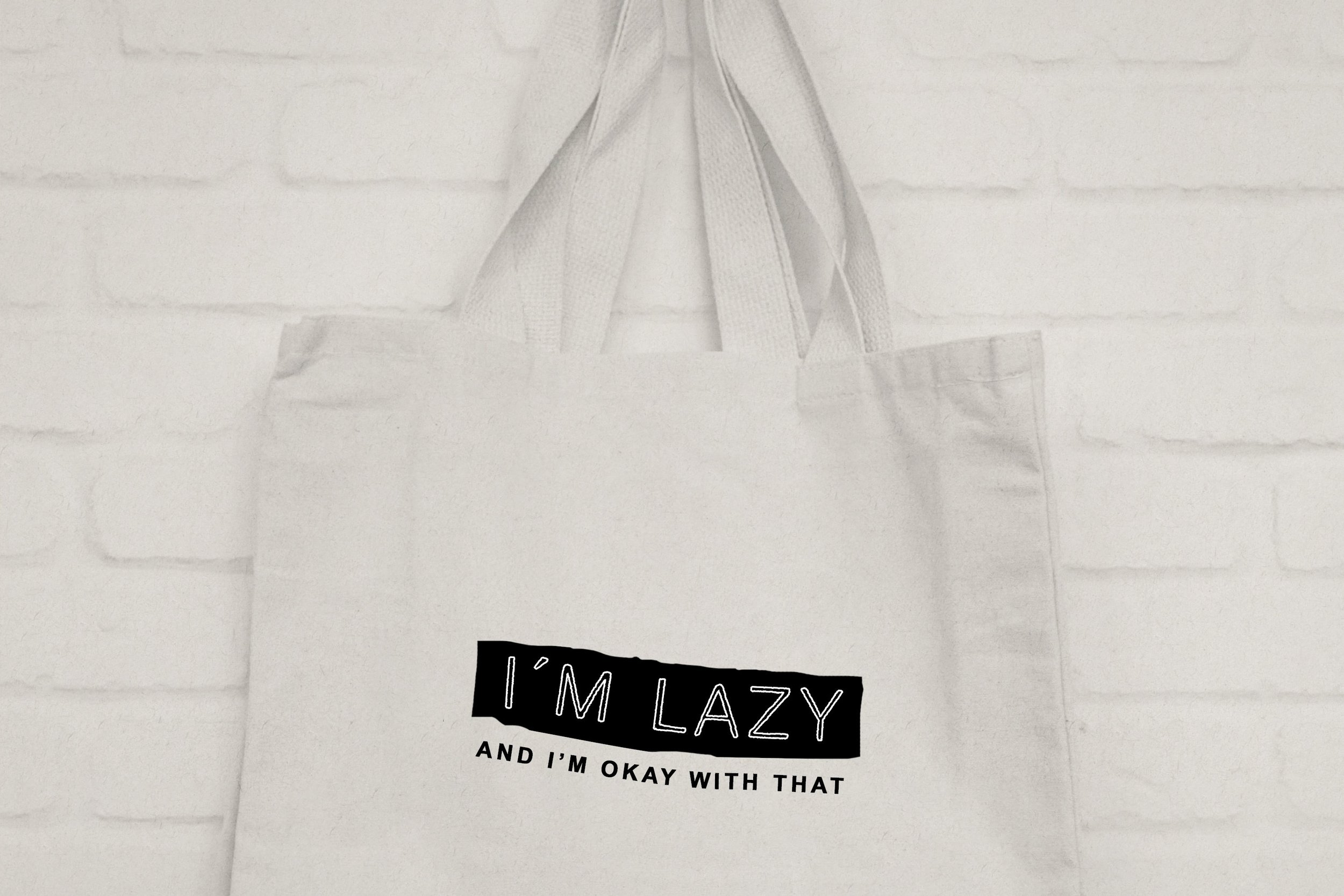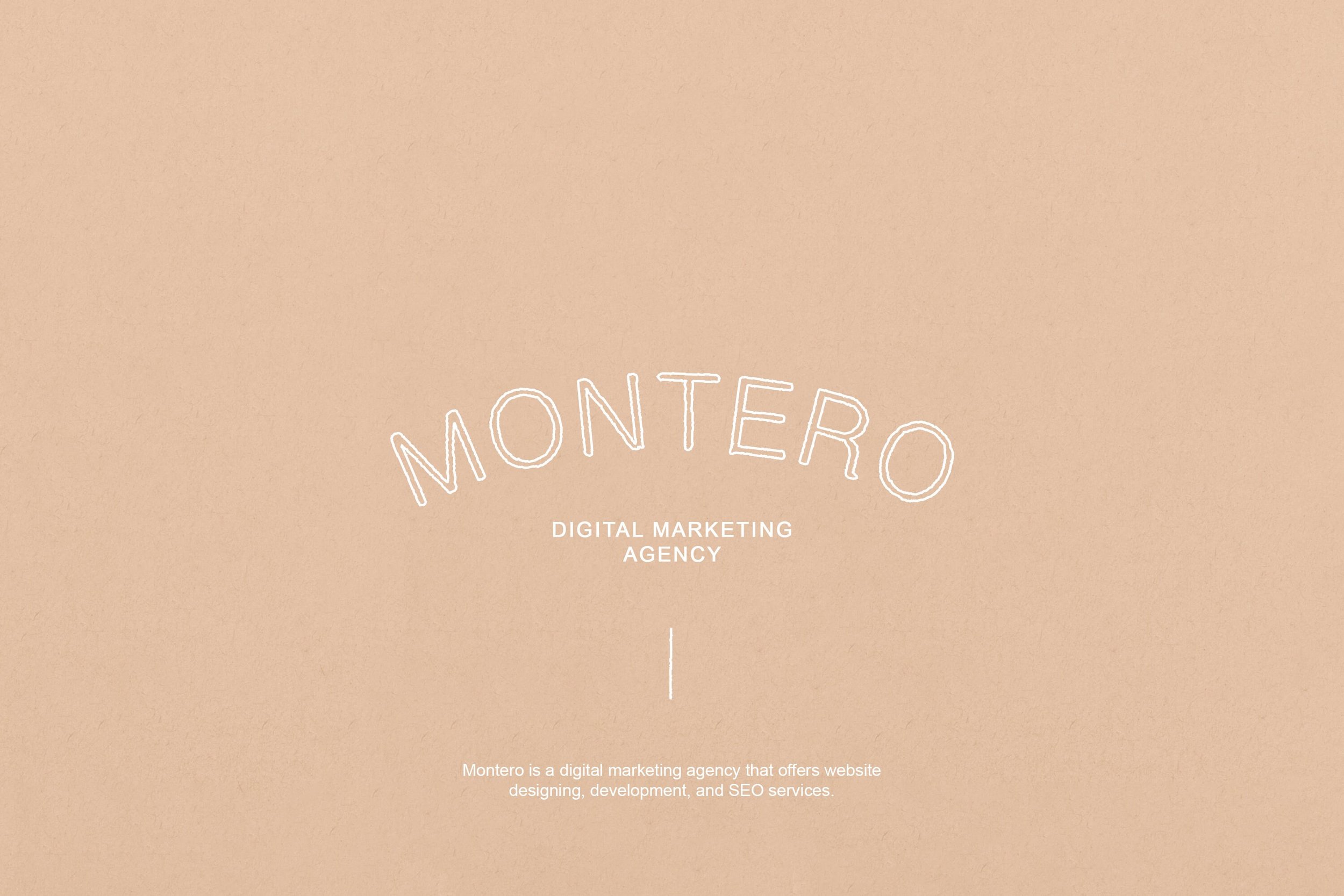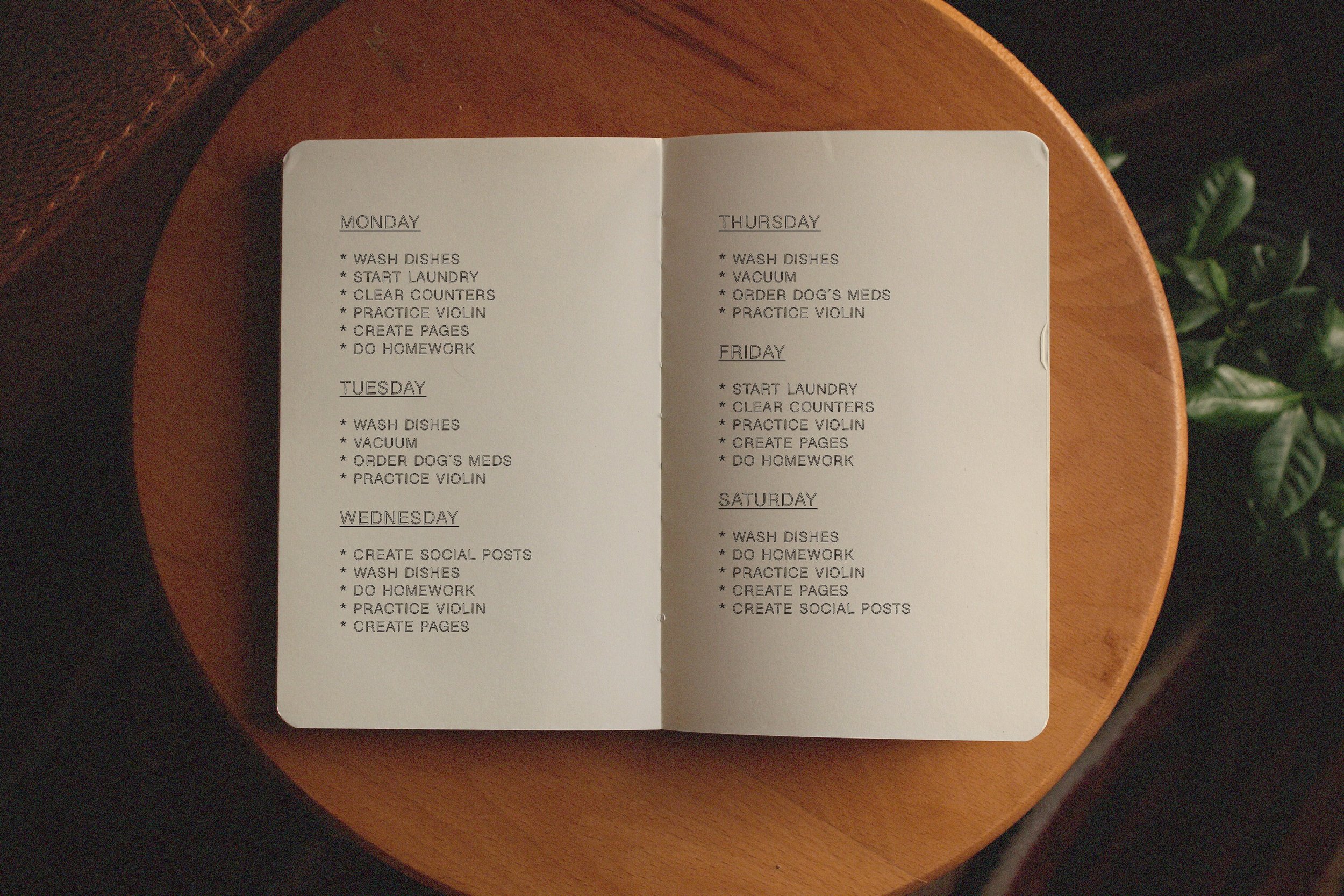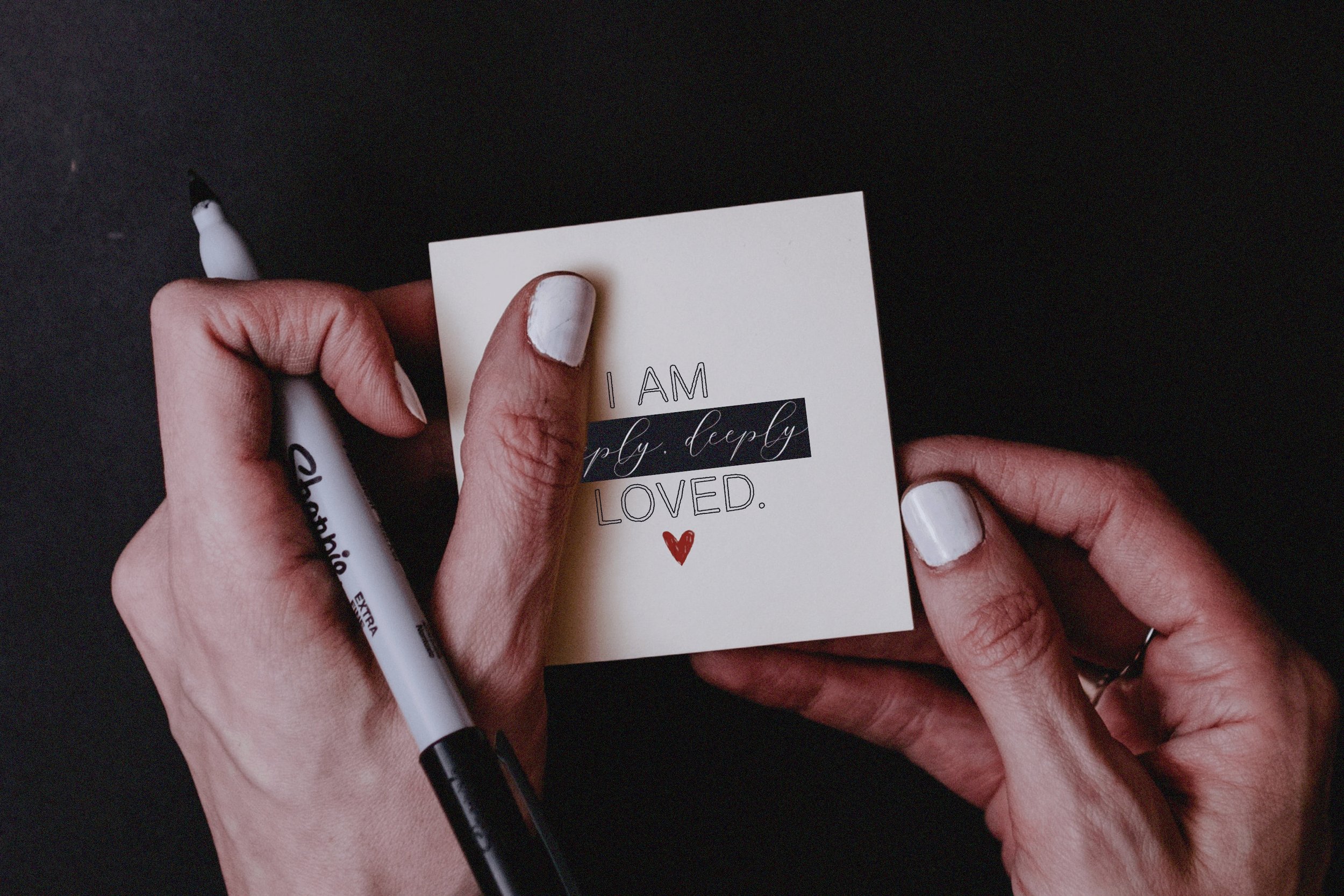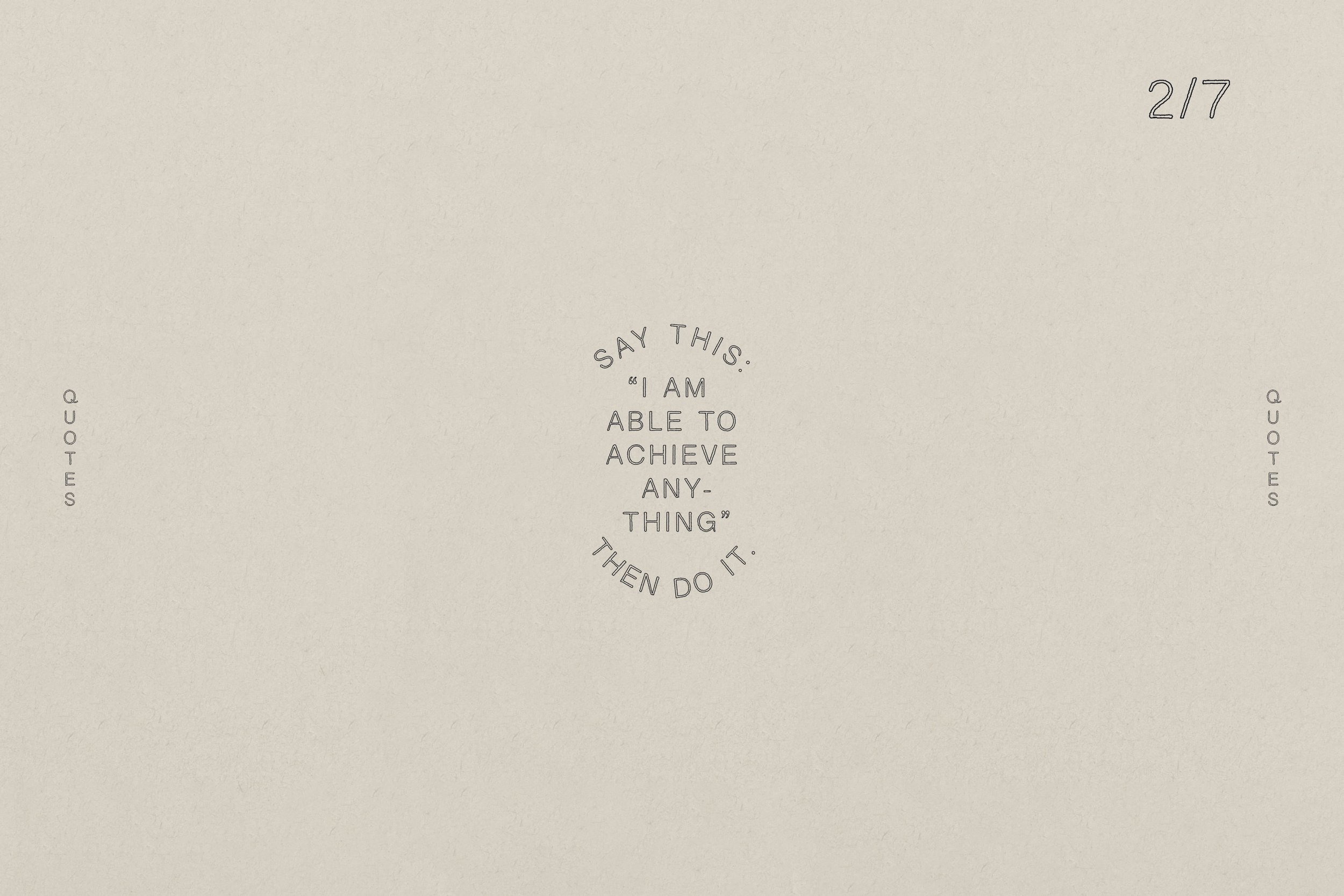
Nashville Outline Font
Organic outline font, Handy rustic font, Cute retro font for commercial use.
- Upper/lowercase, numbers, punctuations;
- Regular, Italic, Bold, Solid.